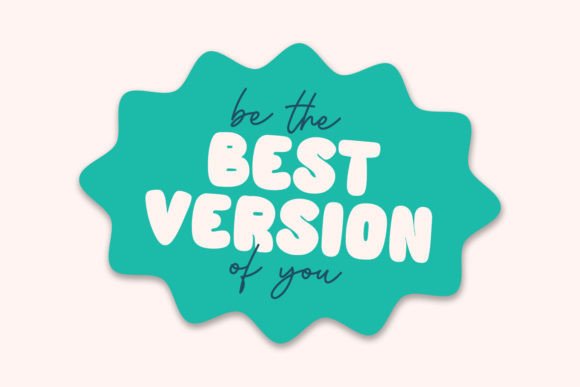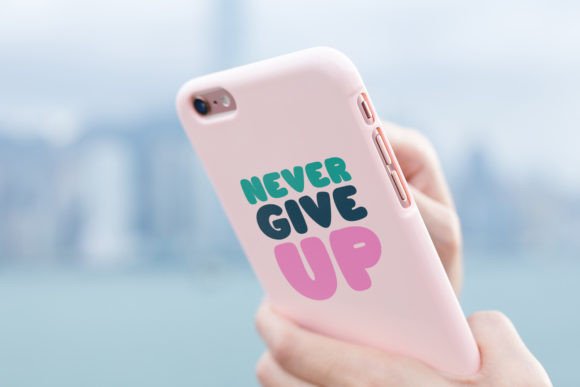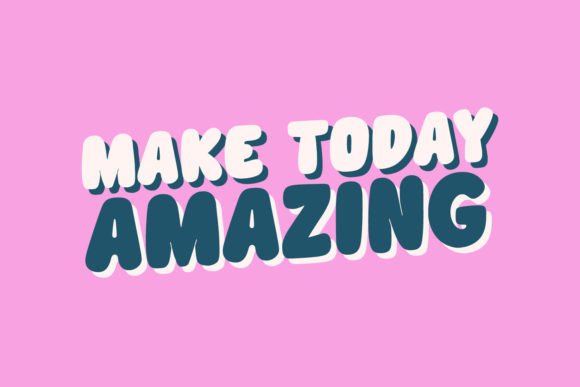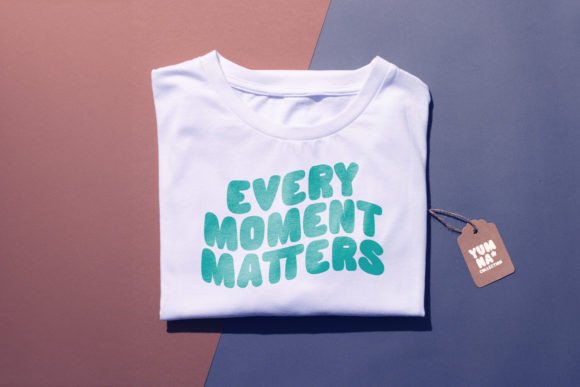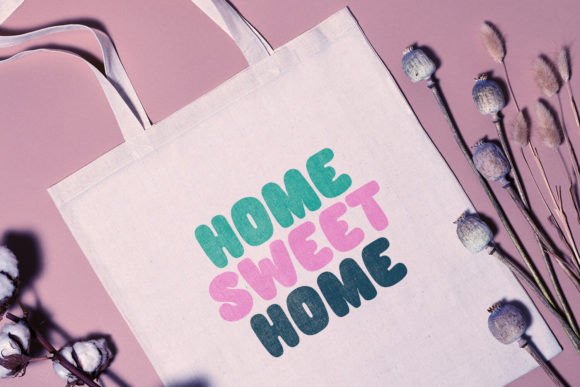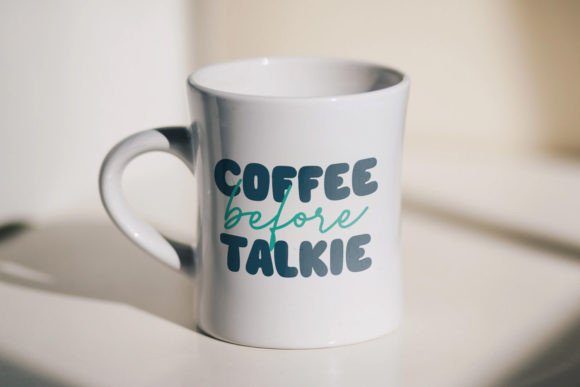
Introduction to Nice Twins Font
As designers, we’ve all been there – staring at a blank canvas, waiting for inspiration to strike. And then, suddenly, it happens. A spark of creativity ignites, and we know exactly what we want to create. For many of us, that spark comes in the form of a font – a simple yet powerful tool that can make or break the tone of our design. One such font that has captured the hearts of designers everywhere is the Nice Twins Font.
This delightful display font is more than just a pretty face; it’s a valuable resource for any creative project. With its bold, all-capital letters and thick weight, the Nice Twins Font is sure to grab attention and make your message stand out. Plus, its smooth, rounded shapes add a touch of friendliness and approachability that’s perfect for designs that need a bit of personality.
Key Features of Nice Twins Font
- High-quality design resource suitable for creative projects, with a unique and playful style.
- Perfect for use in digital and print media, including logos, typography, and branding materials.
- Unique characteristics include a modern and minimalist aesthetic, with a range of font styles and weights to choose from.
Honest Review: Nice Twins Font
I recently stumbled upon the Nice Twins Font while working on a creative project, and I must say it’s been a game-changer. This high-quality design resource has been a lifesaver for my design work.
- ✨ One of the standout features of the Nice Twins Font is its transparent background, which makes it super easy to work with and allows for seamless integration with my design elements.
- ✨ The font’s versatility is another major plus, as it can be used for a wide range of design projects, from print materials to digital interfaces.
However, I do have to mention a few limitations:
- ⚠️ The font’s character set is limited, which can make it less suitable for projects that require a wide range of characters and symbols.
- ⚠️ Additionally, the font’s weight and style options are somewhat limited, which can make it less customizable than other fonts.
Overall, I’m really impressed with the Nice Twins Font, and I would definitely recommend it to other designers. Its high quality, versatility, and free availability make it a valuable addition to any design project.
Tips for Getting the Most Out of Nice Twins Font
Here are some tips to help you get the most out of the Nice Twins Font:
- Use the font with a transparent background to create a seamless design.
- Combine the font with other design elements to create a unique look.
The Nice Twins Font is perfect for various design projects, including:
- Social media graphics and advertisements
- Product labels and packaging